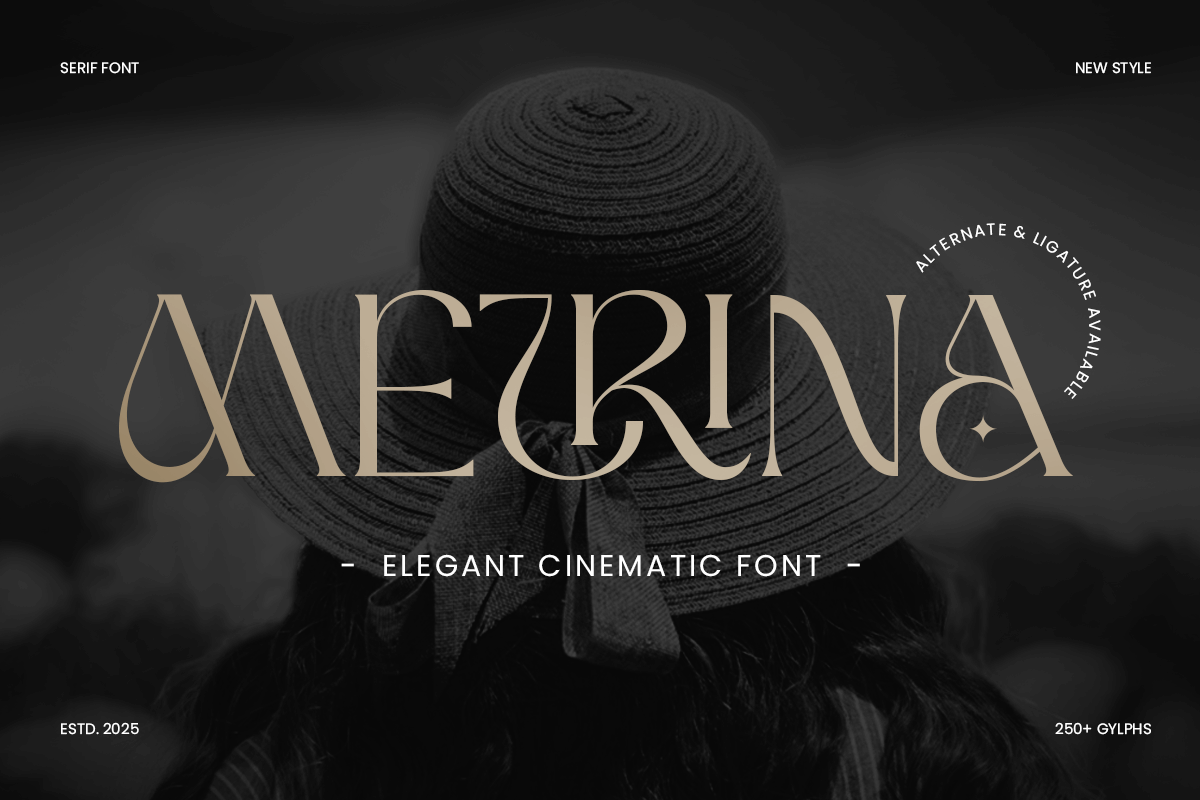
Metrina
-Elegant Cinematic FontMetrina - Elegant Cinematic Font
METRINA is an elegant cinematic font that brings a touch of sophistication and luxury to your designs. Perfect for film titles, high-end branding, and upscale editorial work, METRINA features graceful curves, refined serifs, and a timeless style that exudes class.
Whether you're designing a cinematic logo, an invitation for a luxury event, or a glamorous magazine cover, METRINA adds a polished, professional touch to any project. Inspired by the glamour of classic cinema and modern elegance, this font is ideal for creating memorable, high-impact visuals.
METRINA – Elegant Cinematic Font Features
Elegant letterforms with a cinematic feel
Perfect for film titles, luxury branding, and sophisticated design projects
Sleek, high-end design with a refined aesthetic
OpenType features for advanced typographic styling
Add timeless elegance to your designs with METRINA – the perfect font for cinematic and luxury branding. 🎬✨